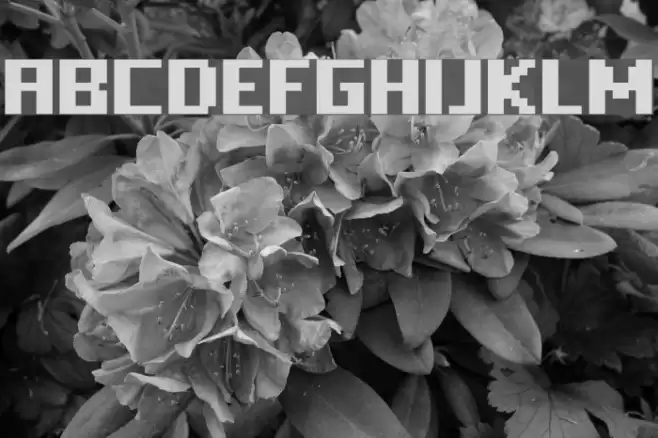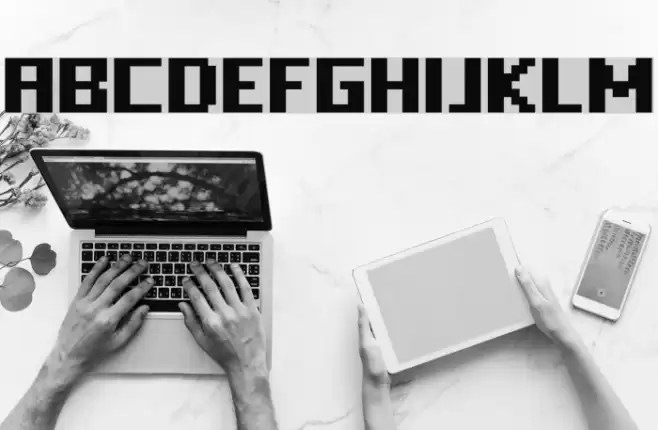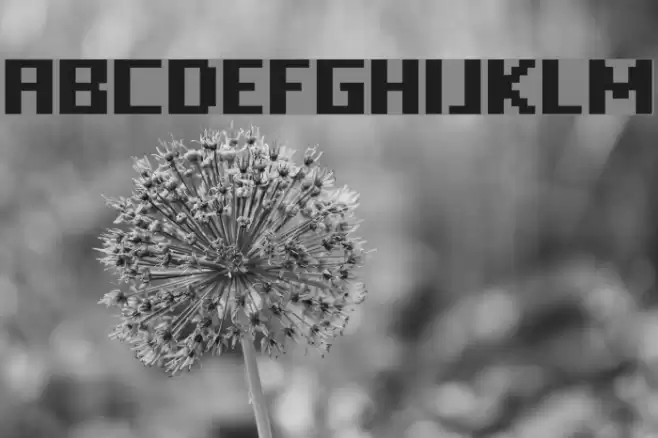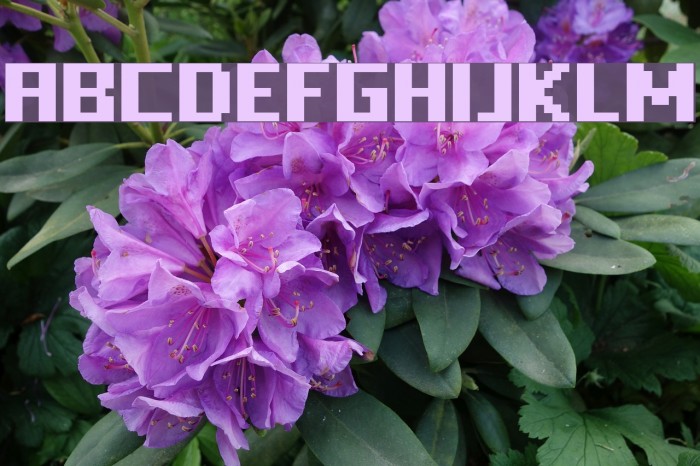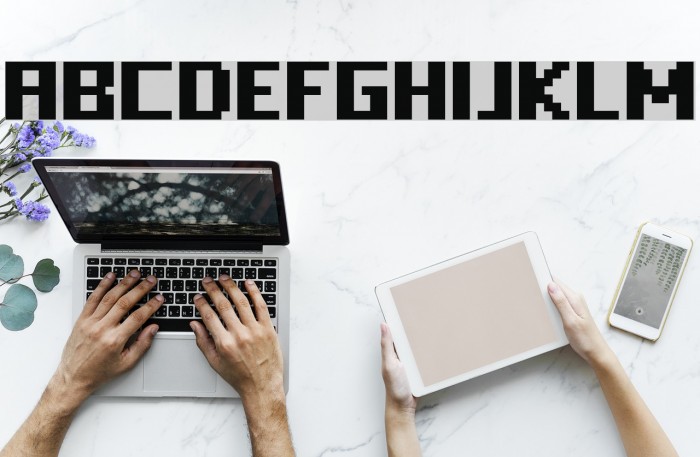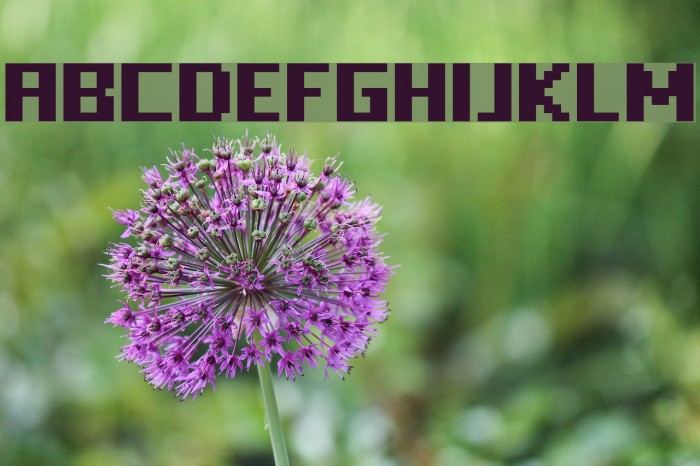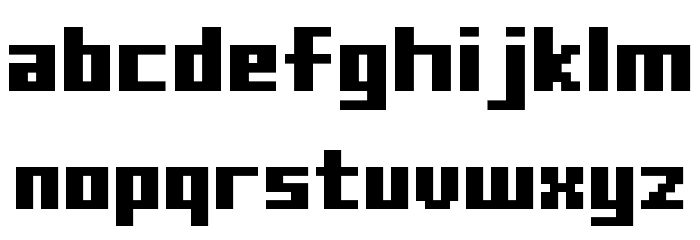
FFF Freedom Font
FFF Freedom Description
This font features a bold, blocky design with a pixelated aesthetic reminiscent of early digital displays or retro video games. Each character is constructed with sharp, angular lines, giving it a distinctly geometric appearance. The uniformity in stroke width across all characters contributes to a cohesive and structured look. The uppercase and lowercase letters maintain a consistent height, enhancing readability while preserving the font's unique style. The numbers and special characters are designed to match the overall pixelated theme, ensuring a seamless integration with the alphabetic characters.
A bold, pixelated font with a retro digital aesthetic from Pixel fonts.
- Proposed Projects: Ideal for projects that require a retro or digital theme, such as video game graphics, tech-themed posters, or digital art displays.
- Overall Style: Retro, Digital